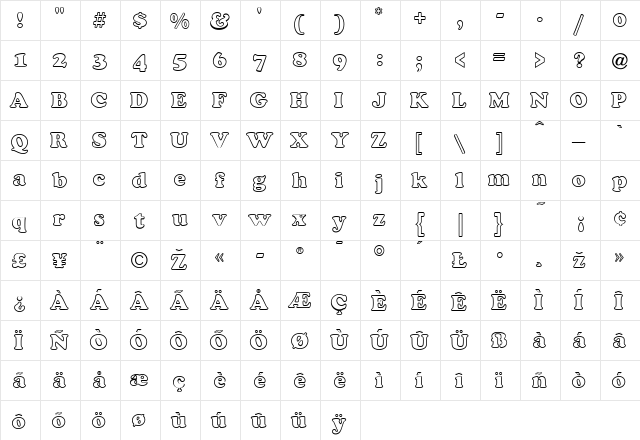
CooperBlackOutline Regular
Design Context for CooperBlackOutline Typeface
CooperBlackOutline brings ornamental detail and strong personality to headlines and identities, where visual impact matters more than quiet functionality.
Font Pairing: Pair with a clean neutral sans-serif for body copy to let CooperBlackOutline's character lead without overwhelming the composition.
Pro Tip: Use CooperBlackOutline exclusively at display sizes — it was designed to be seen, not read at length. Let a neutral companion handle body copy.